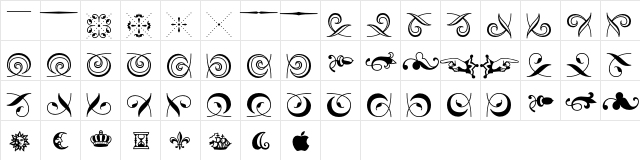
HoeflerText Ornaments
Design Context for HoeflerText Typeface
HoeflerText is built around its visual character rather than neutral utility — its distinctive forms are designed to make an impression at display sizes.
Font Pairing: Pair with a clean neutral sans-serif for body copy to let HoeflerText's character lead without overwhelming the composition.
Pro Tip: Treat HoeflerText as the centrepiece of your typographic hierarchy. One strong heading set in a decorative face can carry an entire layout.